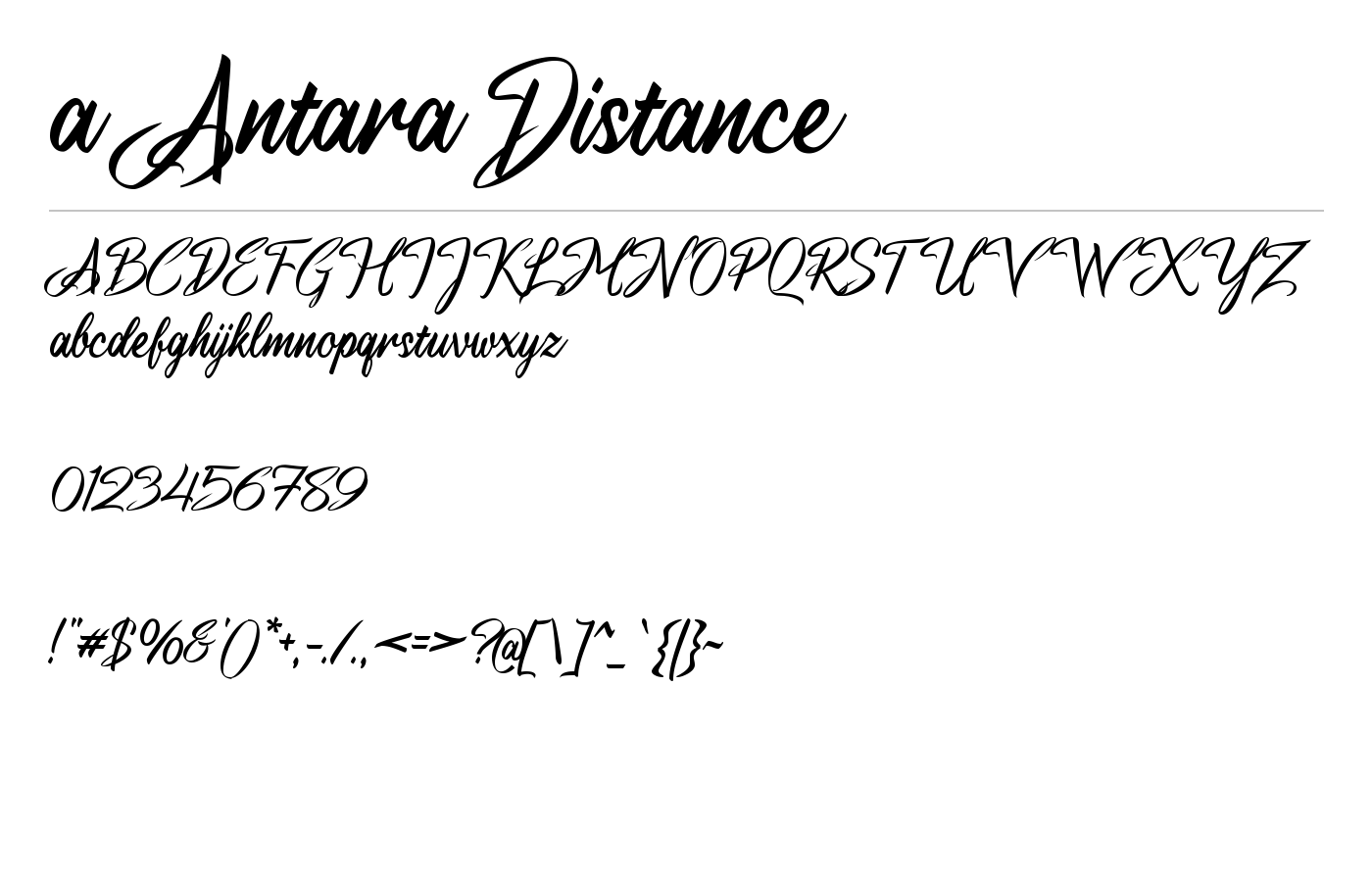
Antara Distance is an elegant script font with a flowing, calligraphic style that combines graceful curves and slender strokes. Its refined and sophisticated character makes it perfect for invitations, branding, and stylish headlines where a personal, artistic touch is desired. This font’s smooth, connected letterforms bring a sense of luxury and creativity to any design.
a Antara Distance Font